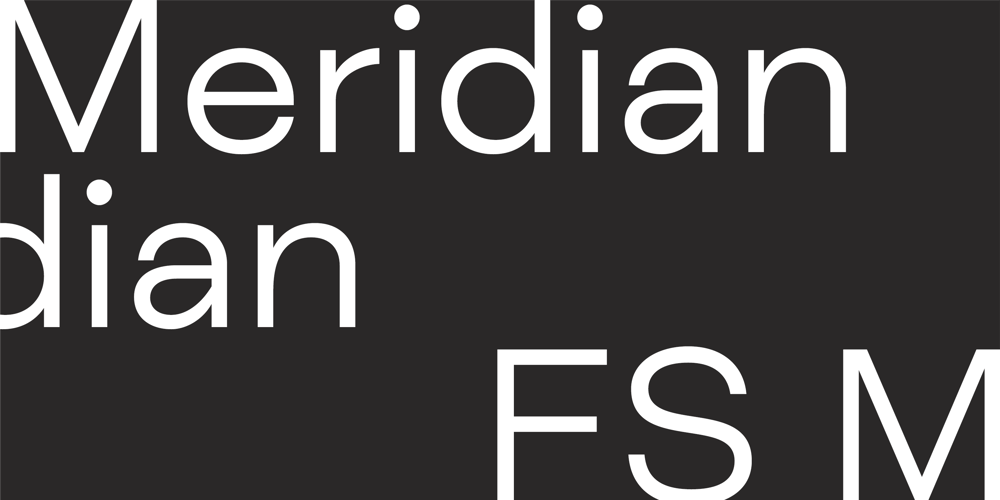
FS Meridian Font Family was designed by Kristina Jandova and published by Fontsmith. FS Meridian contains 5 styles and family package options. Timeless imperfectionFS Meridian is a rhythmic geometric grotesque which takes inspiration from the precise yet imperfect nature of time. There are 24 hours in a day. 60 minutes in an hour. 60 seconds in a minute. Well, almost. The Earth’s orbit isn’t a perfect circle – and nor is the Earth itself. Each day varies a few dozen seconds and up to 16 minutes each year. Look closer and time is more flexible than we think.Geometry with a twistFrom a geometric base, FS Meridian’s rounded forms veer and extend, creating unexpected humanistic shapes – while the straight terminals remain reliably rigid. This combination of forms gives this grotesque sans serif a pleasingly dynamic rhythm, every time it’s read.Added quirksThe unconventional character of rigid terminals and ink traps are balanced with emphasized extended forms to develop visual differentiation. Designed by Kristina Jandová, the complete family has been carefully crafted with distinguishing marks. Take a look at the cap ‘Q’ which comes with three alternative options.Deliciously loopyFS Meridian has a wide geometric, mono-liner appearance with humanistic elements. Quirky individual touches like the loopy expressive pound sign help the typeface to stand out. Available in five weights, FS Meridian is both timeless and timely, a distinctive font for all screens and surfaces.